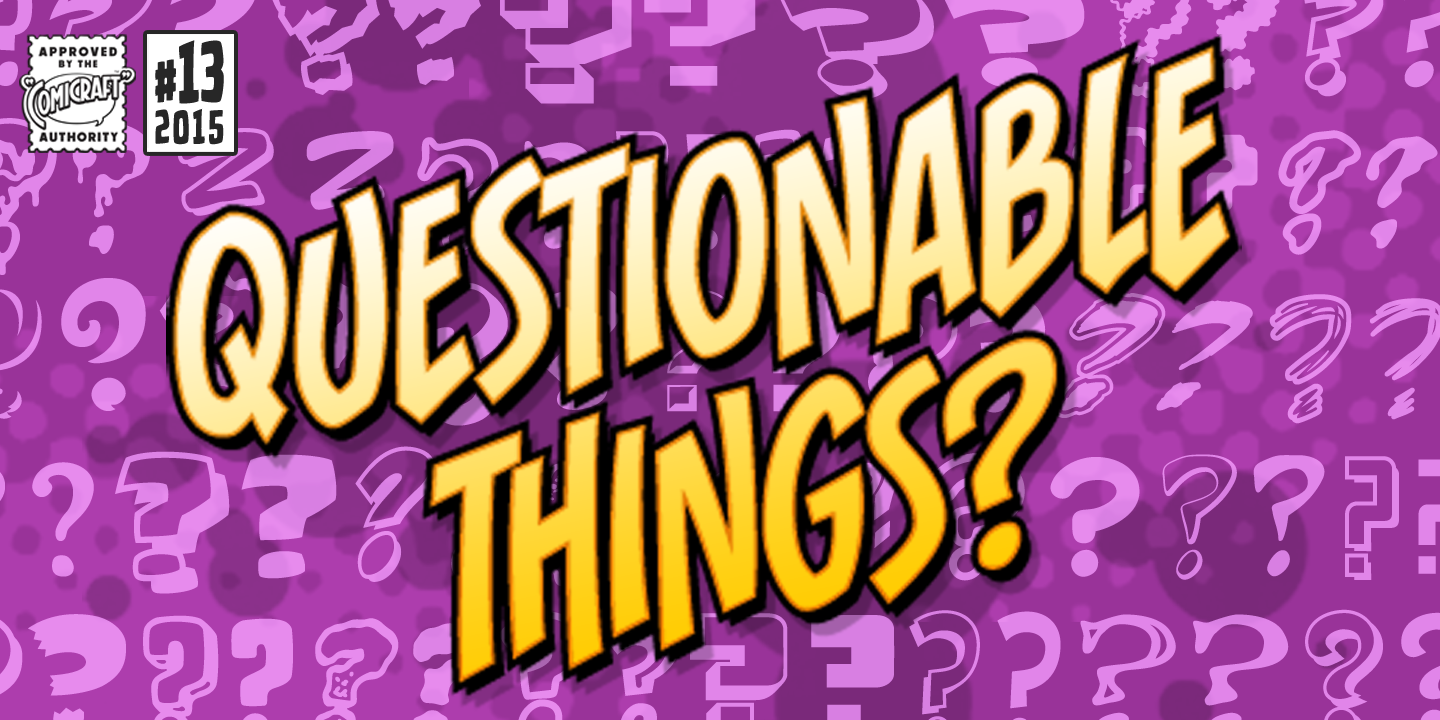
About Questionable Things Font Family Have you been marking your words quixotically lately? Can’t choose between an interrogative and a questionnaire?
It can be quite the problem during question time, so we’ve quickly rounded up a quality quorum of questionable characters so you’ll never be short of a Q during a Q&A! Designers: Richard Starkings, John RoshellPublisher: ComicraftFoundry: ComicraftDesign Owner: ComicraftMyFonts debut: Apr 29, 2016 Questionable Things